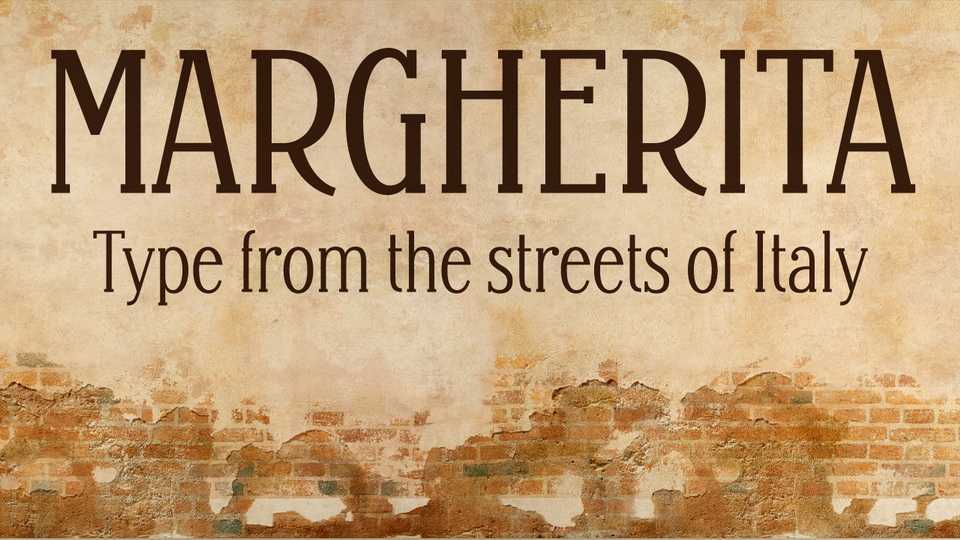
Download Margherita typeface, a warm, friendly, and quirky variable serif font family in five weights, inspired by the streets of Italy that alive with lettering.
Designer: James Puckett